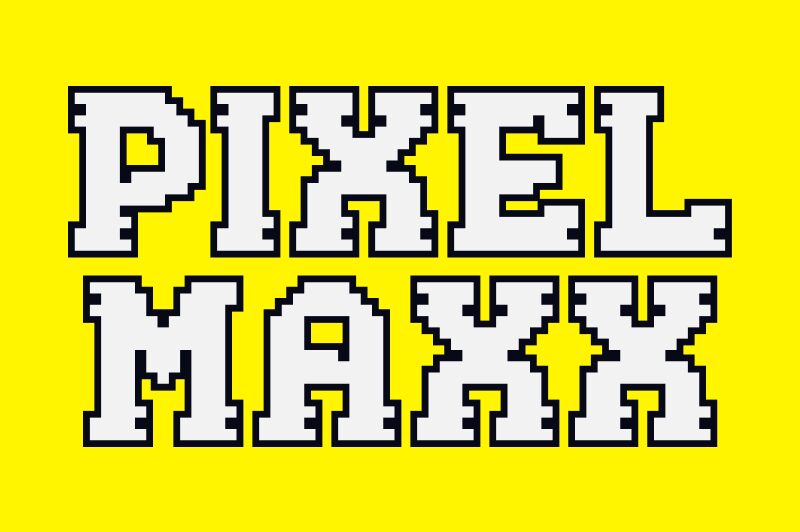
Pixelmax outline, a new free pixel font, gives you a fresh perspective on fonts used in video games. Designed by Fitrah type, this bold outlined pixel font is inspired by pixel art. It’s available in uppercase letters, numbers, punctuation marks, and even symbols with pixelated designs.
Add a retro vibe to your projects, use it for social media captions and posts, titles, games, UX design, business cards, and book titles. Combine it with modern fonts in UX design, or create a pixelated retro style for posters with eye-catching logos, and use Pixelmax outline as your title or slogan font.
Pixelmax Outline